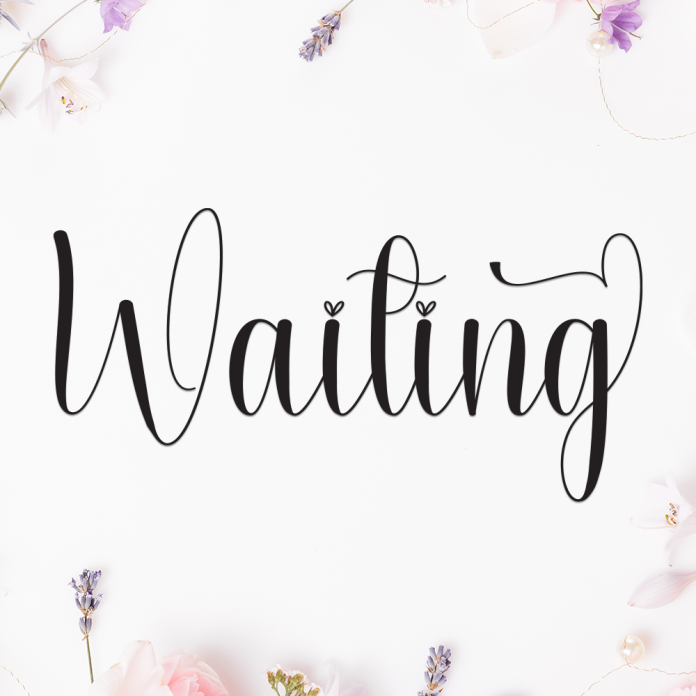
Waiting is a gentle and expressive handwriting font that evokes feelings of patience, thoughtfulness, and quiet moments. Its handwritten strokes are smooth, rounded, and naturally flowing—like words penned in a personal journal or a heartfelt letter.
This font is ideal for inspirational quotes, diary-style designs, greeting cards, branding, and any project that needs an authentic handwritten feel with a calm, emotional touch.
Relaxed, casual handwriting style
Smooth and consistent letter flow
Great for quotes, journals, stationery, and lifestyle branding
Let Waiting express your inner thoughts through soft and personal handwriting.